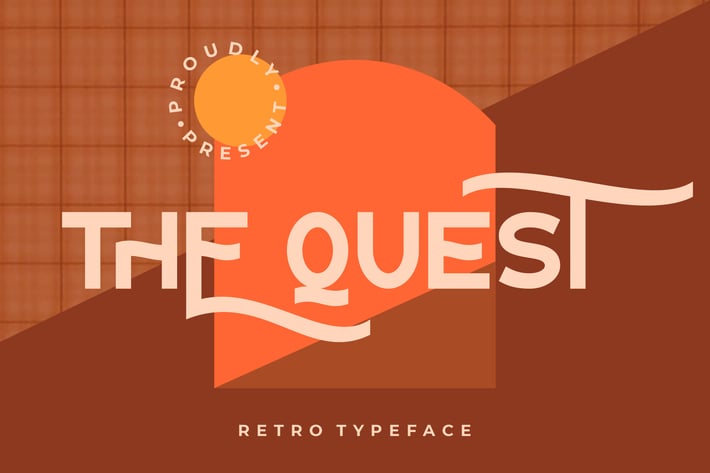
The Quest Retro Typeface
The Quest is retro sans-serif font with retro style and perfect for your latest project.
The Quest is perfect for branding projects, logo, wedding designs, social media posts, advertisements, product packaging, product designs, label, photography, watermark, invitation, stationery and any projects that need handwriting taste.
Ton of glyphs
Ligature & Alternate